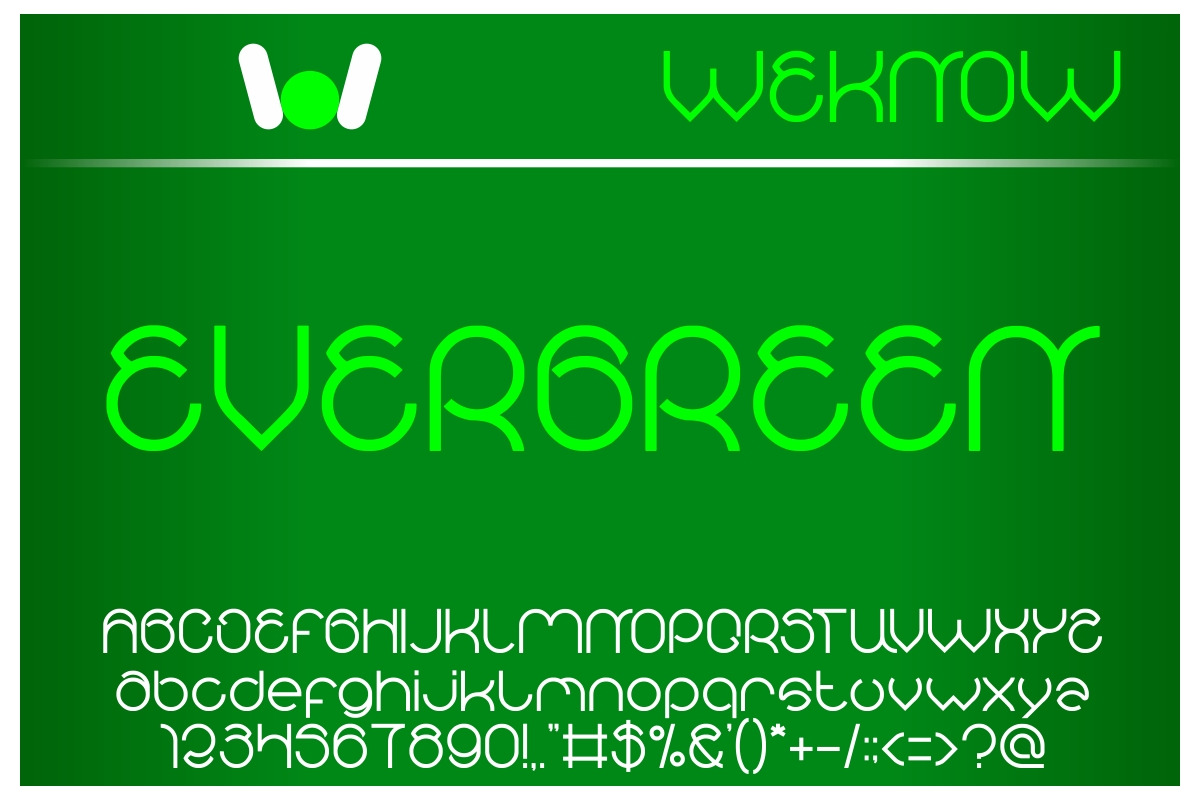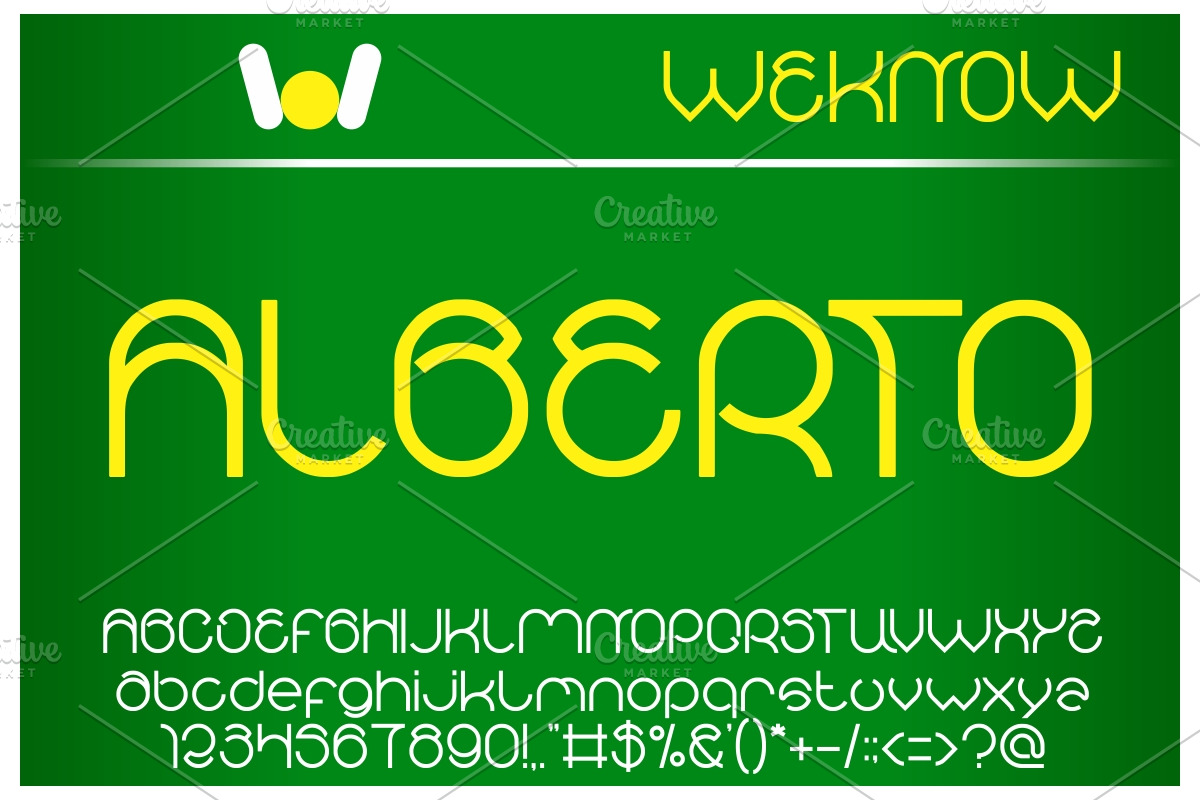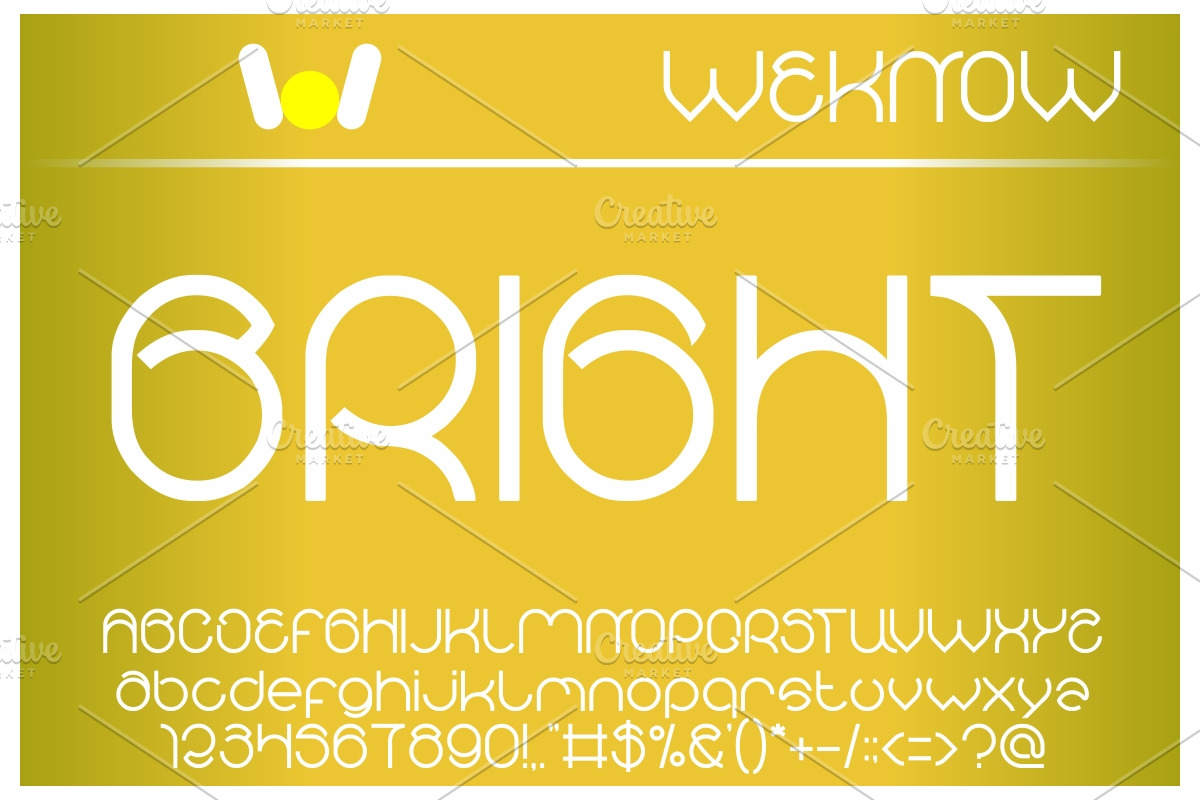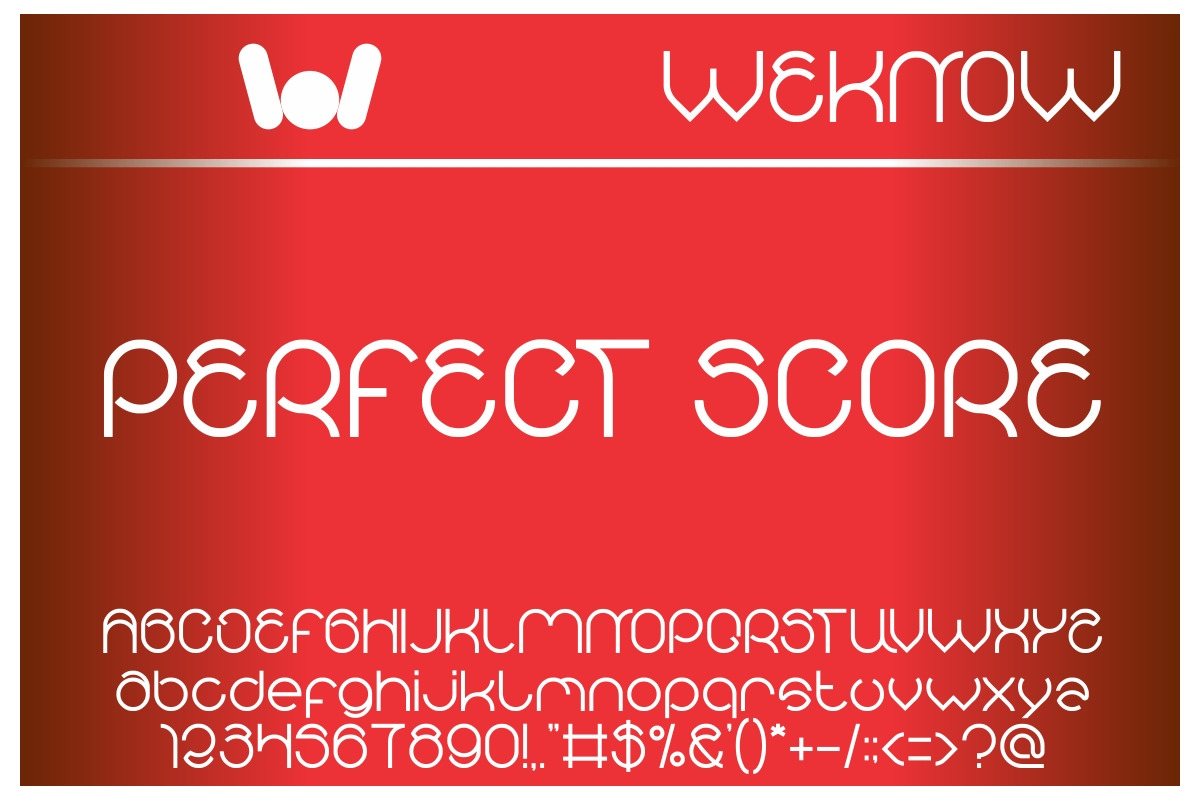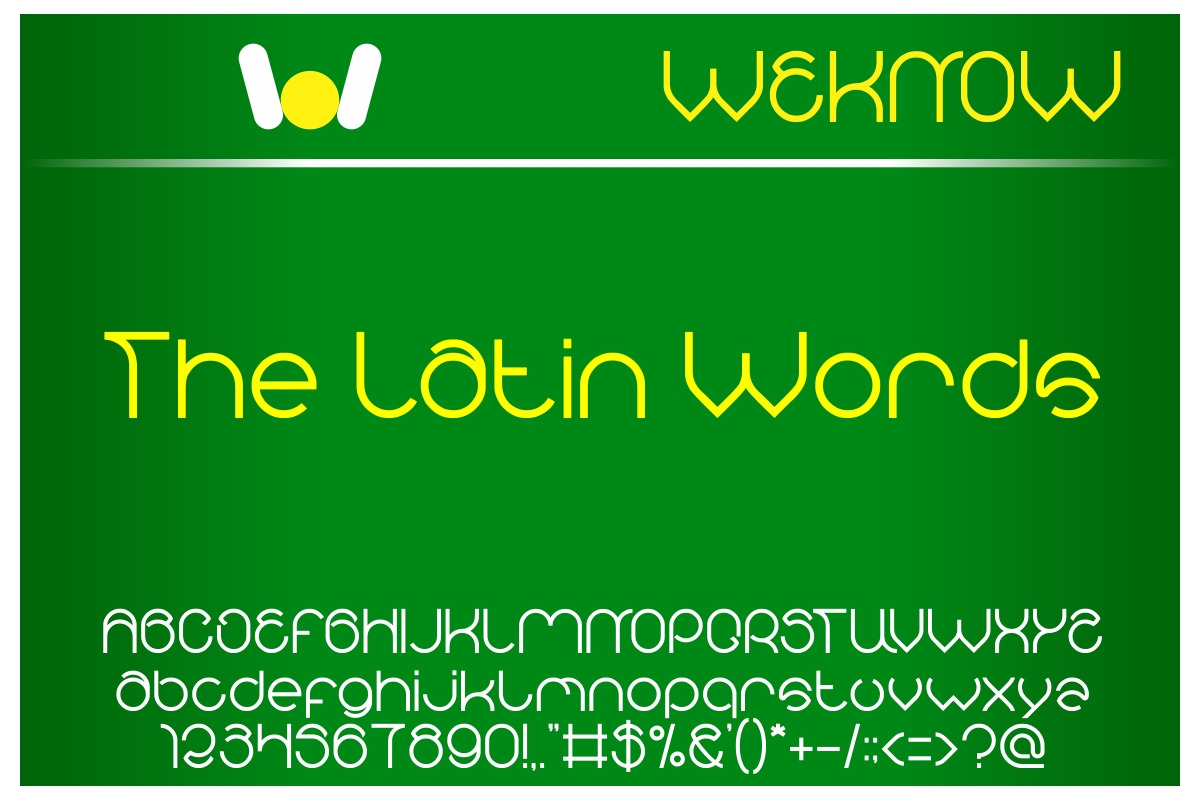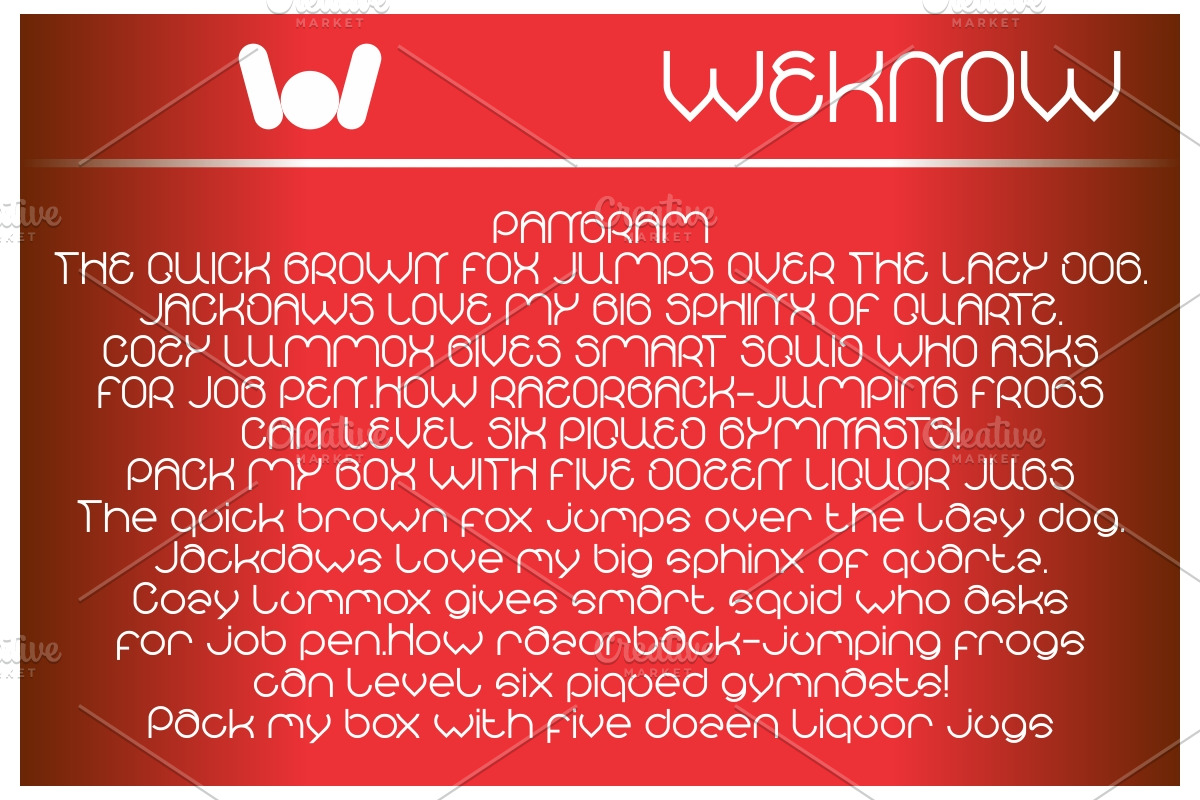
alberto font
alberto font by weknow is a font selected for branding, posters, packaging, typography.
Why alberto font is worth a look
alberto font by weknow fits naturally into Branding, posters, packaging, typography.